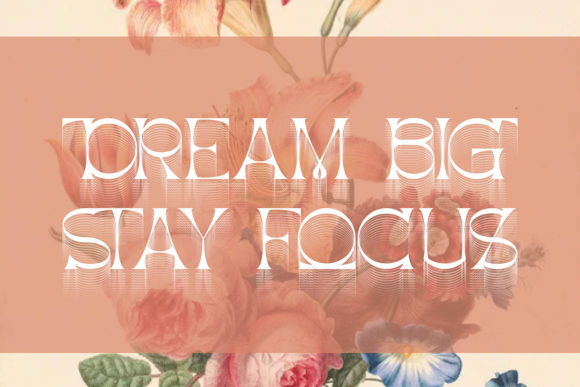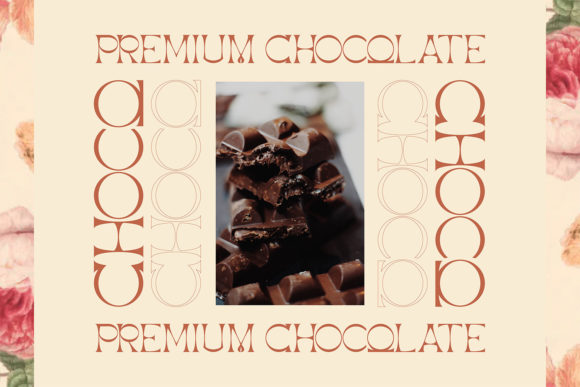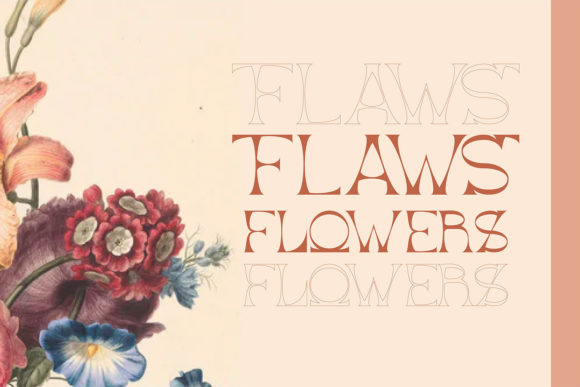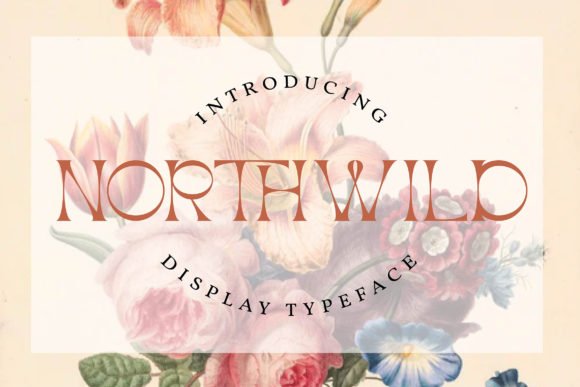
Introduction to Northwild Font
Northwild is a cool and whimsical display font.
This font is PUA encoded which means you can access all of the glyphs and swashes with ease Fall in love with its incredibly versatile style and use it to create spectacular designs.
Key Features of Northwild Font
Why Choose Northwild Font?
Northwild Font offers exceptional quality and versatility, making it a valuable addition to your design toolkit. Whether you’re creating for personal projects or commercial use, Northwild Font delivers professional results.